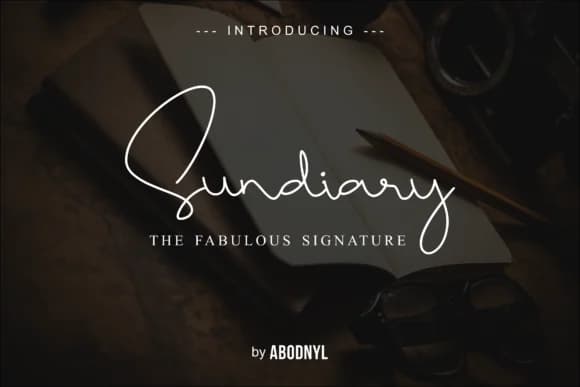
Sundiary by Abodaniel is an elegant signature script that brings sophisticated flow to luxury branding applications. With its refined letterforms and natural handwritten character, this font captures the aesthetic of upscale written communication without losing its accessible appeal. This typeface works exceptionally well for wedding invitation suites, where its flowing lines complement formal announcements and RSVP cards. It's equally suited to high-end beauty and skincare packaging, where the script style conveys premium positioning and artisanal craftsmanship.
For small business owners, Sundiary shines in creating personalized stationery and monogram designs that feel bespoke. Photography marks, watermarks, and logo applications benefit from its distinctive signature quality, while greeting card designers appreciate how the font pairs beautifully with both minimalist layouts and decorative backgrounds. The font's consistent letterforms and smooth connections make it versatile across both digital and print projects.
Sundiary Font is a script font that shines as a display or heading face. Pair it with a clean sans-serif or serif font for body text β the contrast creates a clear hierarchy while the two styles stay balanced and easy to read.
Sundiary Font
by Abodaniel